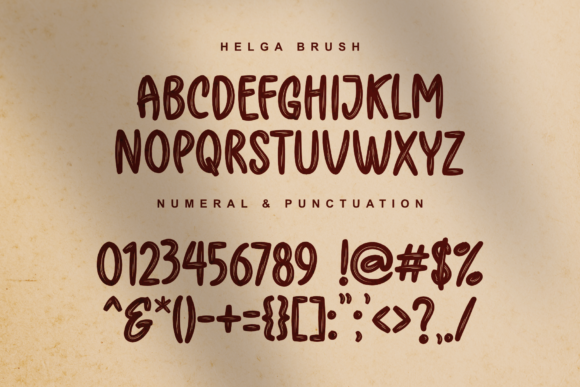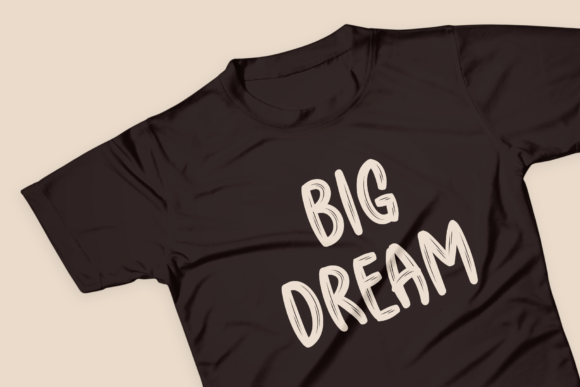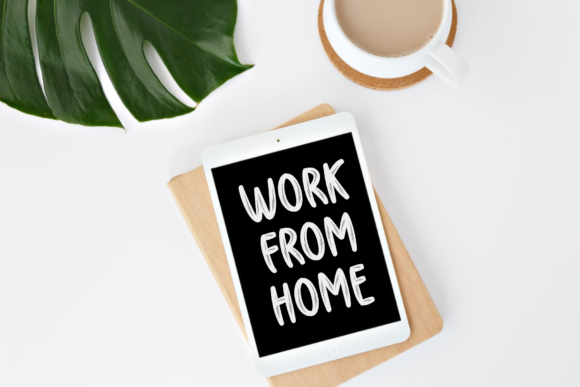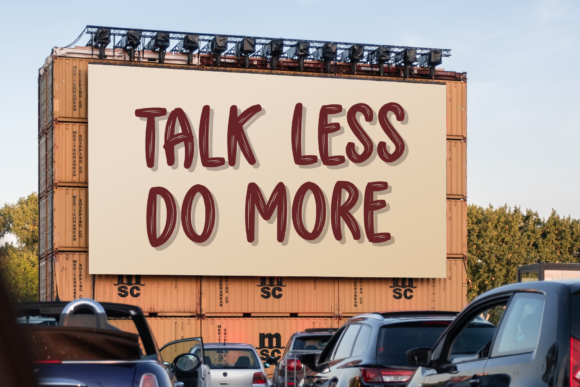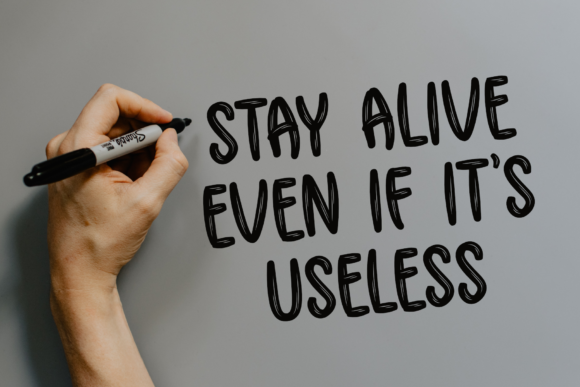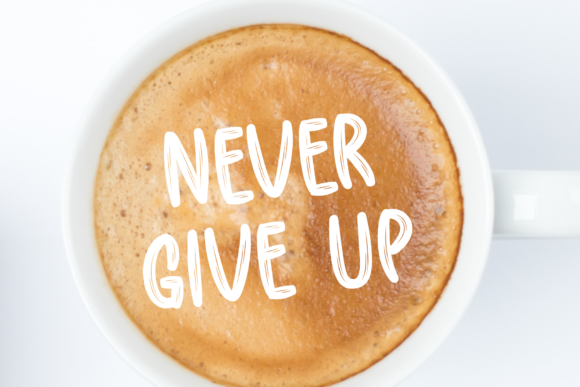
Introduction to Helga Font
Helga is a bold and thick lettered display font, created with the help of an unique brush pen.
Fall in love with its incredibly versatile style and use it to create spectacular designs .
Key Features of Helga Font
Why Choose Helga Font?